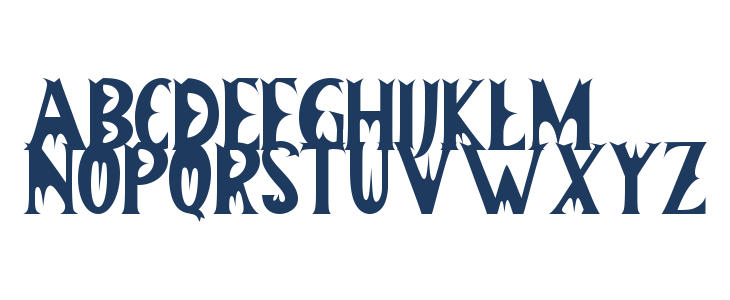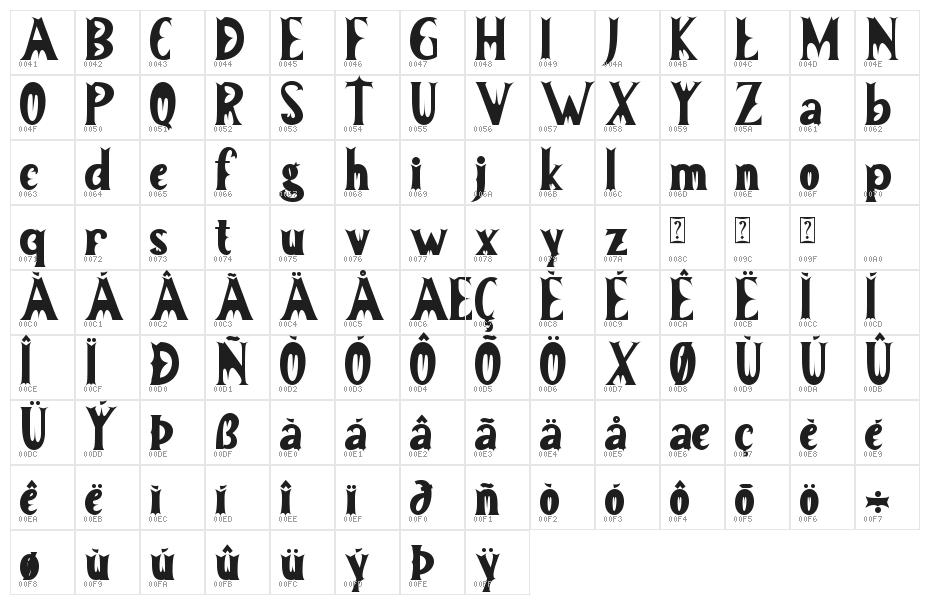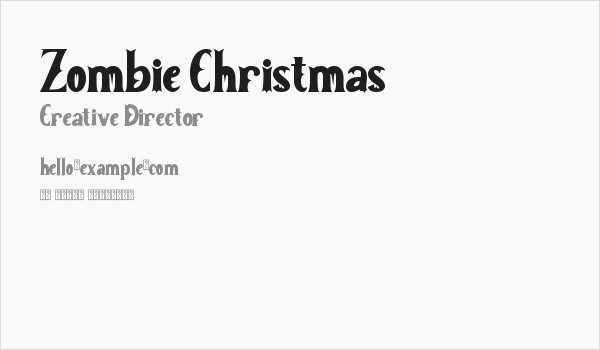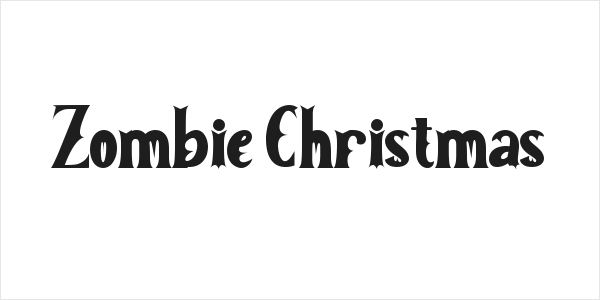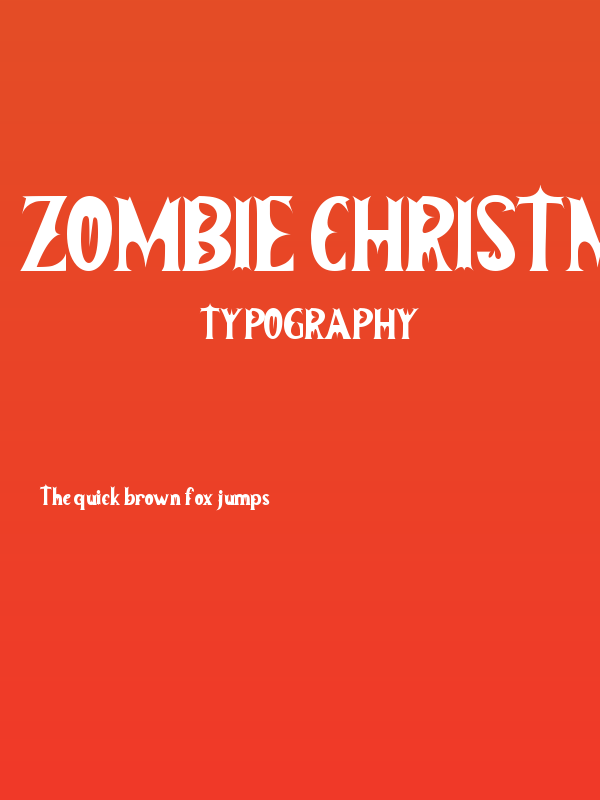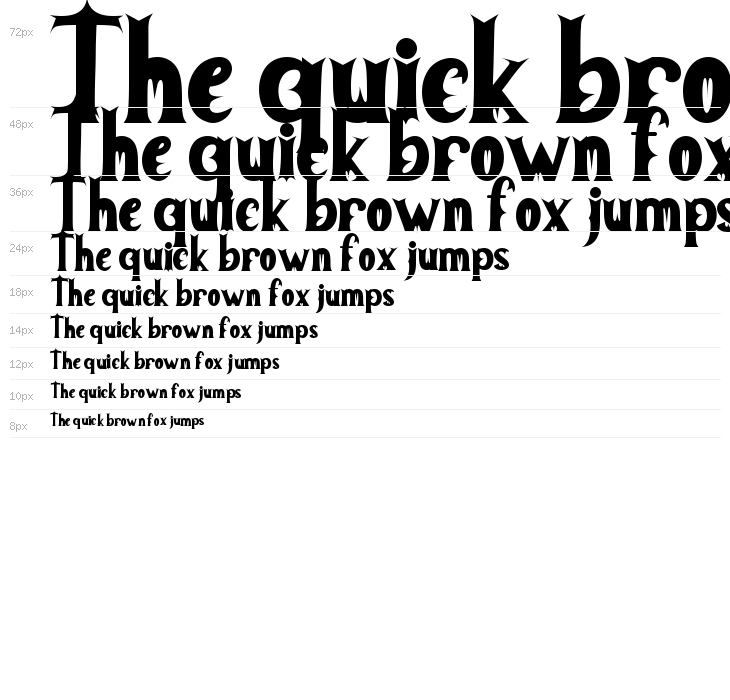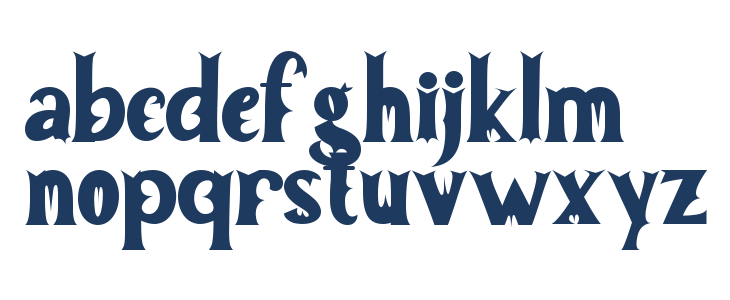
Zombie Christmas Font
Zombie Christmas Description
A bold, decorative display font with jagged, irregular edges and playful, spooky details reminiscent of horror or Halloween themes. The letterforms are wide and dramatic, with unique cutouts and pointed elements that evoke a sense of the macabre.
| Overall Style | Decorative, Spooky, Playful |
| Use Case | Headlines, Posters, Logos, Event Titles |
| Proposed Projects | Halloween posters, horror-themed invitations, party flyers, event branding, seasonal merchandise, children's spooky books. |